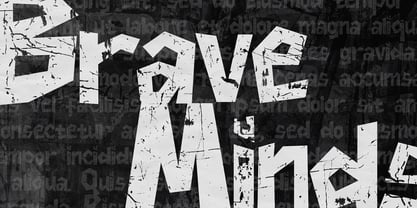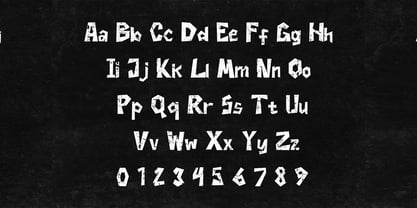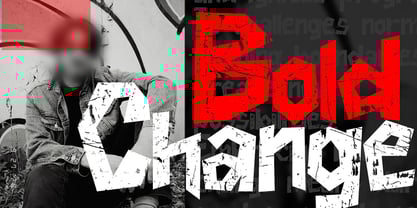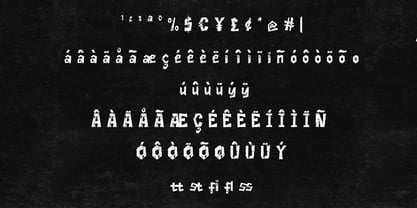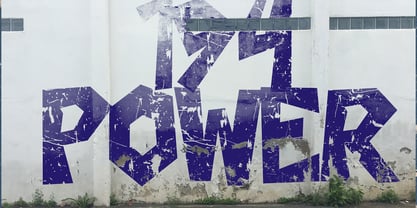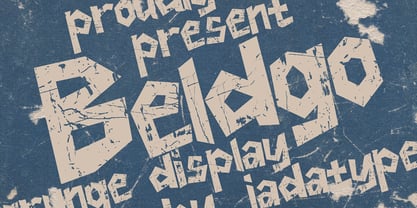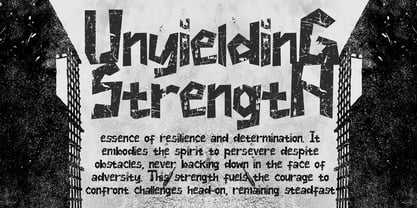
Beldgo
by Jadatype
The Beldgo Font Family was designed by Jada Akbal and published by Jadatype. Beldgo contains 1 styles. More about this family
Beldgo is a Display Font that comes with Grunge Style. Suitable for product, Branding, social media, logotype and so on. contains standard English letters, numbers, punctuation, and several accents that support multilingualism.
Jadatype is a 1-member indie font foundry formed in early 2021. it has created more than 200 fonts with various types of styles. the designer doesn't really have a special style when creating his fonts, but he certainly likes the fonts he has created and he hopes you like them too. the various types of font styles that have been uploaded by Jadatype are specially created by one designer. the designer has a degree in engineering but loves the world of typography. he likes to create font displays with styles that are different, eye-catching and young-playful themes.